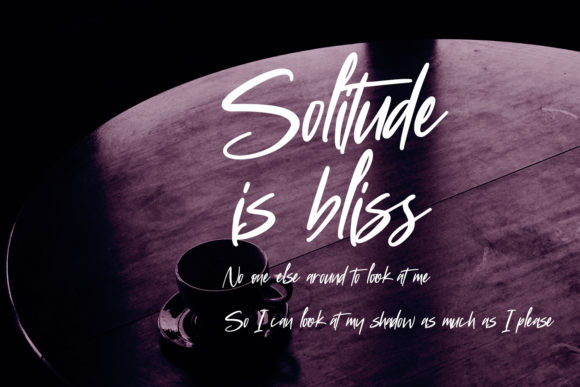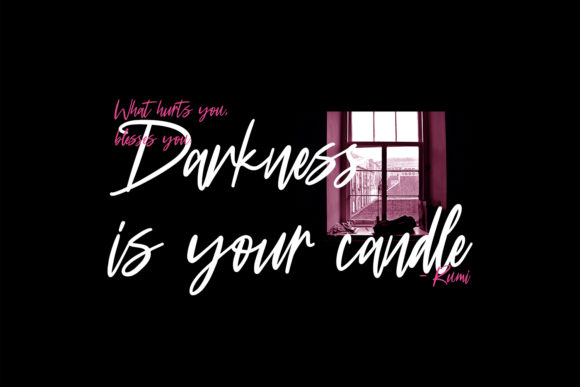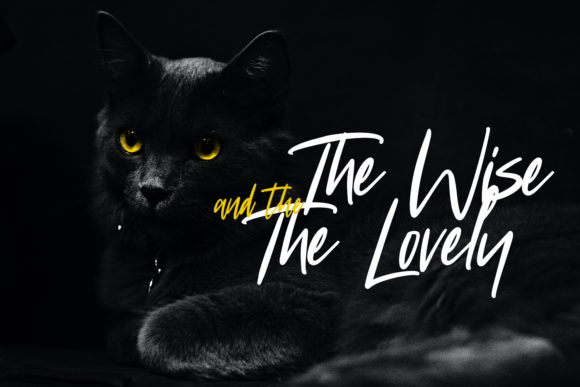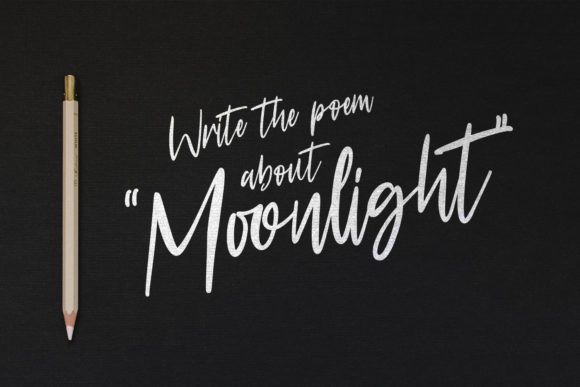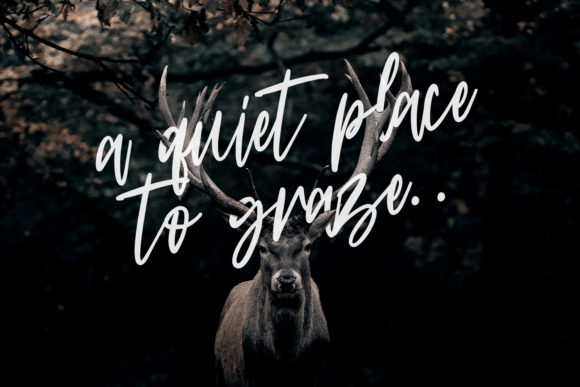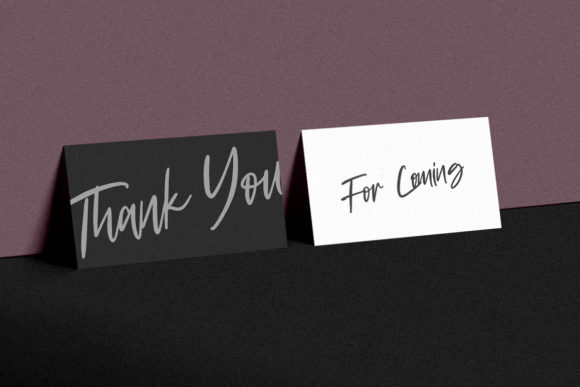
The Astylooms Font: A Timeless Handwritten Treasure
I’ll never forget the moment I stumbled upon the perfect font for a client’s branding project. I had been searching for what felt like hours, scrolling through endless pages of Google results, and testing font after font in Canva. But then, I saw it: Astylooms. This lovely, timeless handwritten font caught my eye, and I knew I had found the one. In this article, I’ll share my experience with Astylooms, its unique features, and how to make the most of it in your designs.
A Personal Review: What I Love About Astylooms
Astylooms is more than just a font – it’s a design statement. Here are the things that make it stand out:
- ✨ Unique and beautiful touch: Every letter has its own character, making your designs truly special.
- ✅ Versatile: Perfect for creating eye-catching logos, branding, and quotes.
- ✅ Highly legible: Despite its handwritten nature, Astylooms is easy to read, even in smaller sizes.
While Astylooms is an amazing font, there are a few things to keep in mind:
- 🤔 Occasional kerning issues: As with any handwritten font, you might need to adjust kerning for optimal results.
The Story Behind Astylooms
Astylooms was created with the intention of bringing a touch of elegance and personality to designs. Although its origins might be shrouded in mystery, one thing is clear: Astylooms has captured the hearts of designers and crafters worldwide.
| What makes Astylooms unique? | Astylooms stands out due to its unique and beautiful touch, making it perfect for designs that need a personal touch. |
| Is Astylooms suitable for body text? | While Astylooms is highly legible, it’s best suited for headlines, titles, and quotes. For body text, consider a more traditional font. |